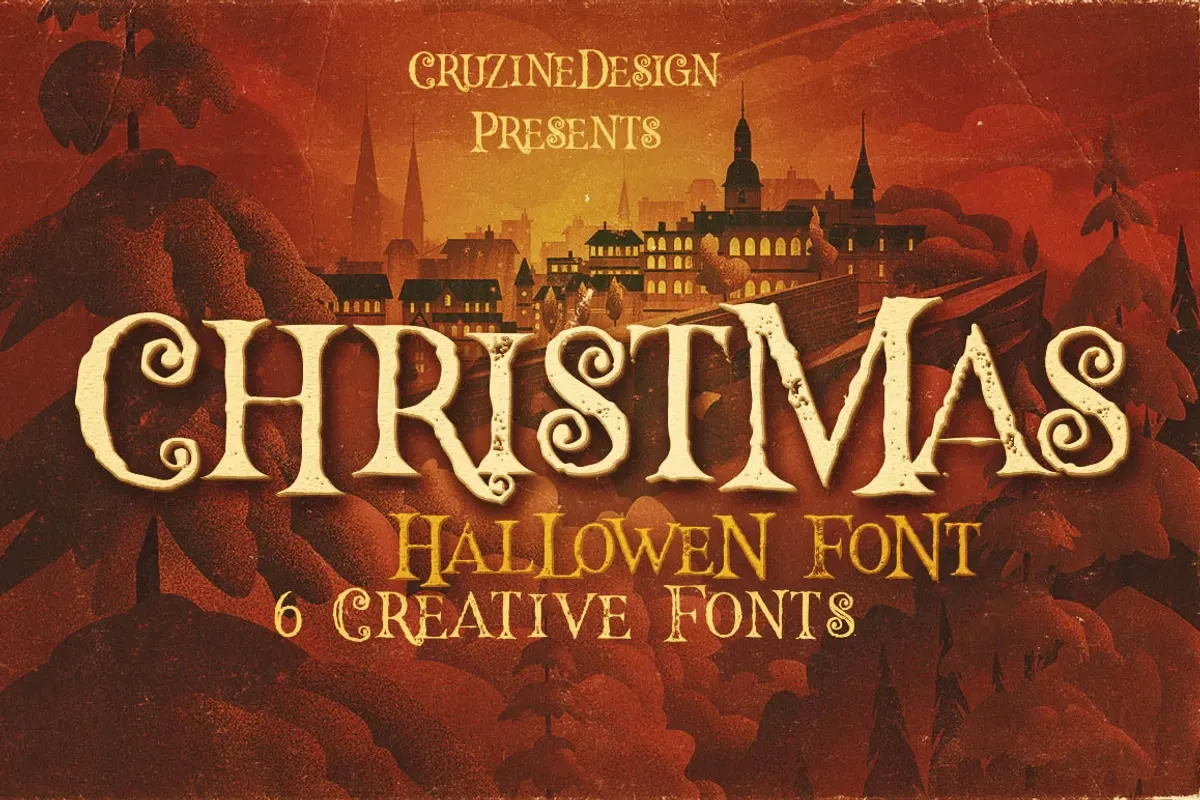
Hallowen Typeface Free Download is a spooky and playful font perfect for all your Halloween-themed designs. With creepy curves, jagged edges, and a haunted vibe, this typeface is ideal for party invitations, event posters, horror movie titles, themed merchandise, and festive social media content.
Its bold and eerie style instantly sets the tone for any project that needs a touch of mystery or fright. Whether you're creating for kids or adults, Hallowen Typeface brings just the right mix of fun and fear to your visuals, making it a go-to choice for seasonal designs.